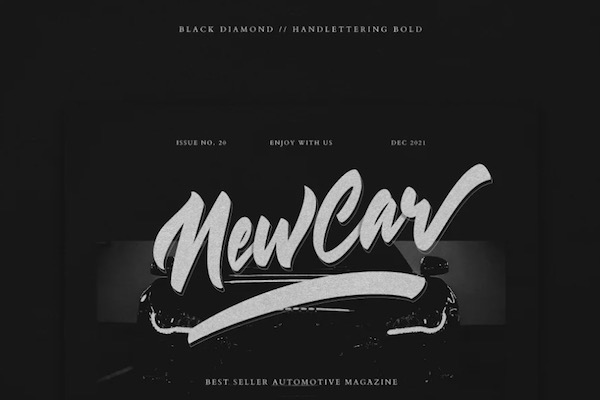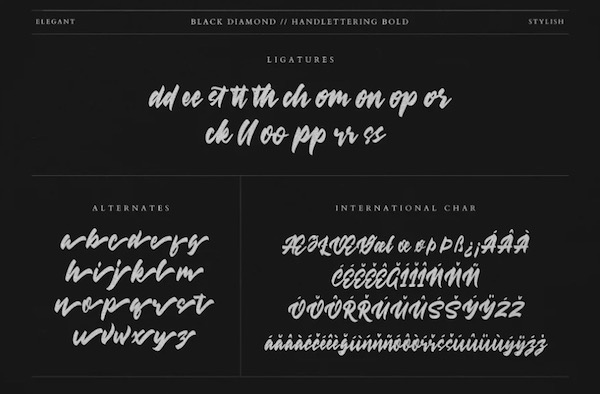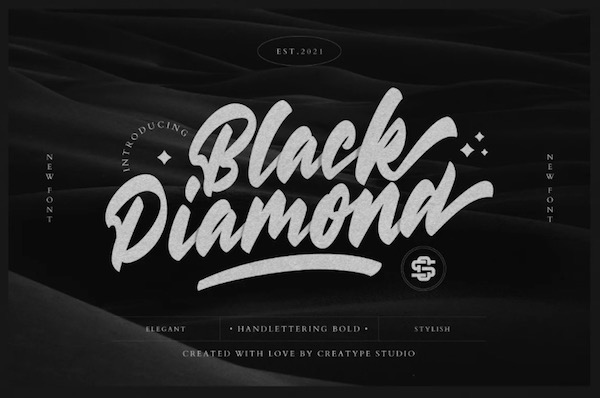
Black Diamond is a handwritten Script font that was created with a brush look along with a friendly feel by Creatype Studio. It’s stunning for many designs such as advertisements, product designs, social media posts, branding projects, wedding designs, logo, product packaging, photography, label, and more.
Black Diamond Script Font